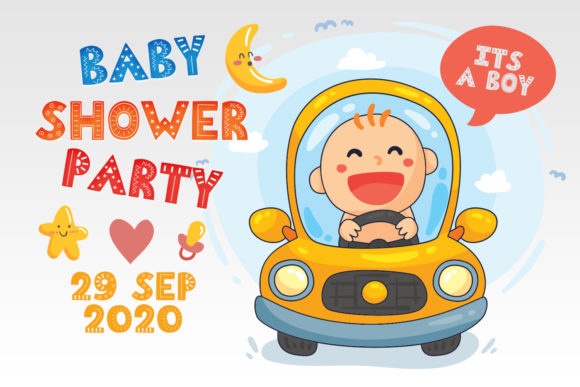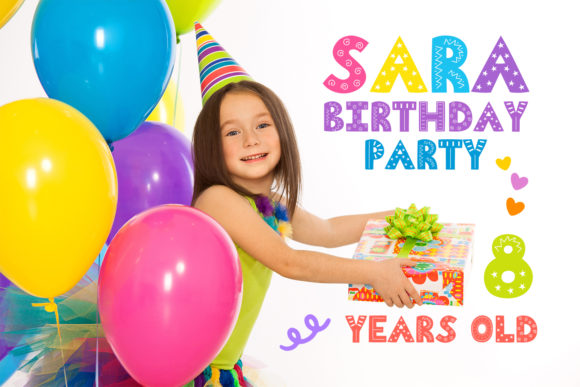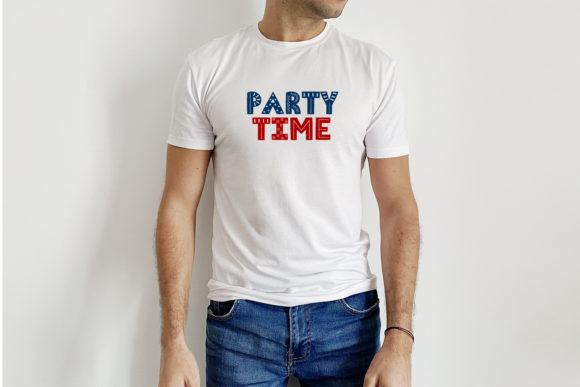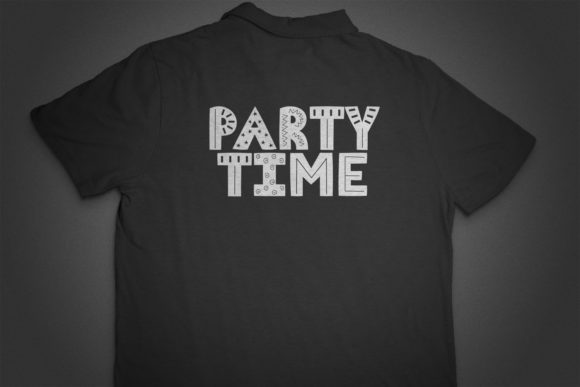
Introducing Funny Kids Party Font: The Ultimate Choice for Fun and Playful Designs
Are you looking for a font that can add a touch of childlike playfulness to your designs? Look no further than the Funny Kids Party font! This colorful and friendly display font is perfect for creating fun and engaging designs for kids and school projects. In this article, we’ll take a closer look at the Funny Kids Party font, its features, and how you can use it to brighten up your designs.
What is Funny Kids Party Font?
Funny Kids Party font is a display font designed to capture the playful and carefree spirit of childhood. Its colorful and friendly design makes it perfect for use in kids’ party invitations, school projects, and other fun designs. The font is highly legible, making it easy to read and understand, even for young children.
Key Features of Funny Kids Party Font
- Colorful and Friendly Design: The Funny Kids Party font features a bright and cheerful design that’s sure to grab attention.
- Childlike Playfulness: The font’s playful design makes it perfect for use in kids’ party invitations, school projects, and other fun designs.
- Highly Legible: The font is designed to be easy to read and understand, making it perfect for use in designs for young children.
- Multilingual Support: The Funny Kids Party font supports multiple languages, making it a great choice for designers and crafters around the world.
How to Use Funny Kids Party Font in Your Designs
The Funny Kids Party font is incredibly versatile and can be used in a wide range of designs, including:
- Kids’ Party Invitations: Create fun and engaging party invitations that will get kids excited for the big day.
- School Projects: Add a touch of playfulness to school projects, such as posters, presentations, and reports.
- Crafting Projects: Use the Funny Kids Party font to add a personal touch to crafting projects, such as homemade cards and gift tags.
- Digital Designs: Use the font in digital designs, such as social media graphics, blog posts, and website headers.
Tips for Using Funny Kids Party Font
Here are a few tips for getting the most out of the Funny Kids Party font:
- Use it with Bright Colors: The Funny Kids Party font looks best when paired with bright, cheerful colors.
- Experiment with Different Sizes: The font looks great in a variety of sizes, from large display text to smaller body text.
- Combine it with Other Fonts: Try pairing the Funny Kids Party font with other fonts to create a unique and interesting design.
The Funny Kids Party font is a fun and playful display font that’s perfect for adding a touch of childlike playfulness to your designs. With its colorful and friendly design, highly legible text, and multilingual support, it’s a great choice for designers and crafters around the world. Whether you’re creating kids’ party invitations, school projects, or digital designs, the Funny Kids Party font is sure to brighten up your designs and bring a smile to your audience’s faces.
Get Creative with Funny Kids Party Font